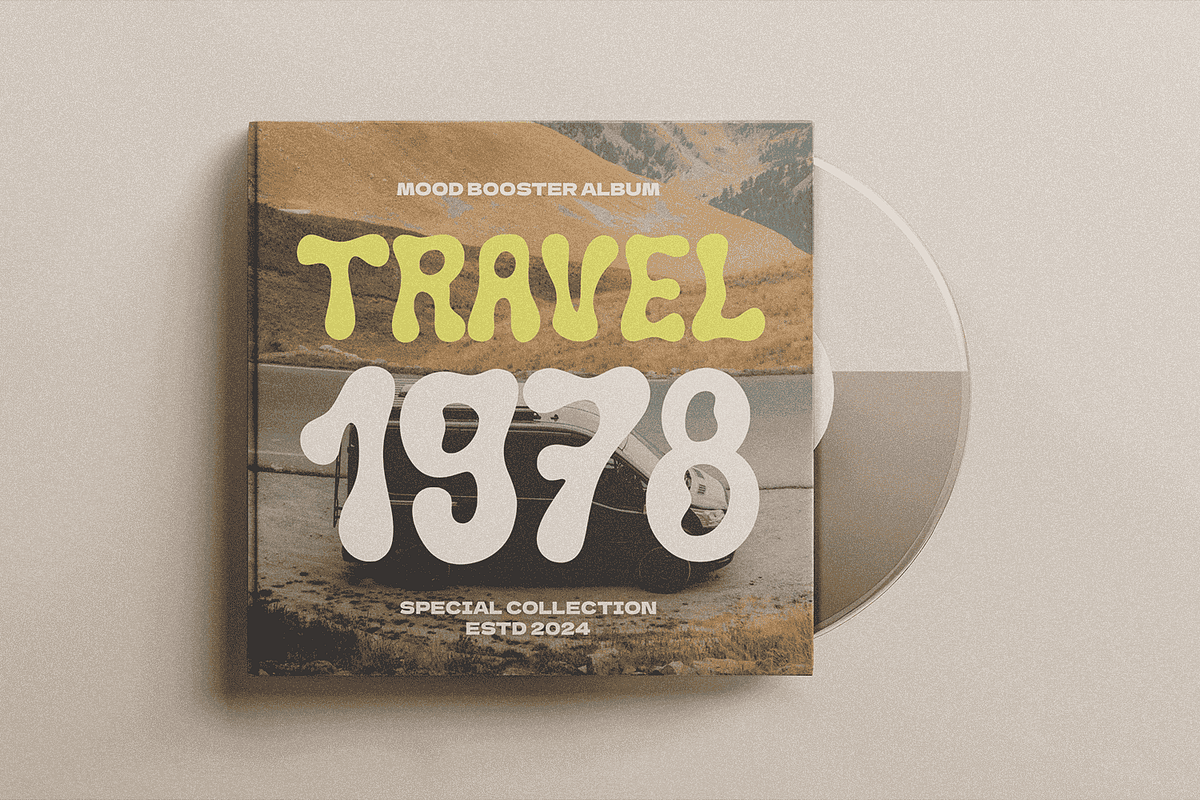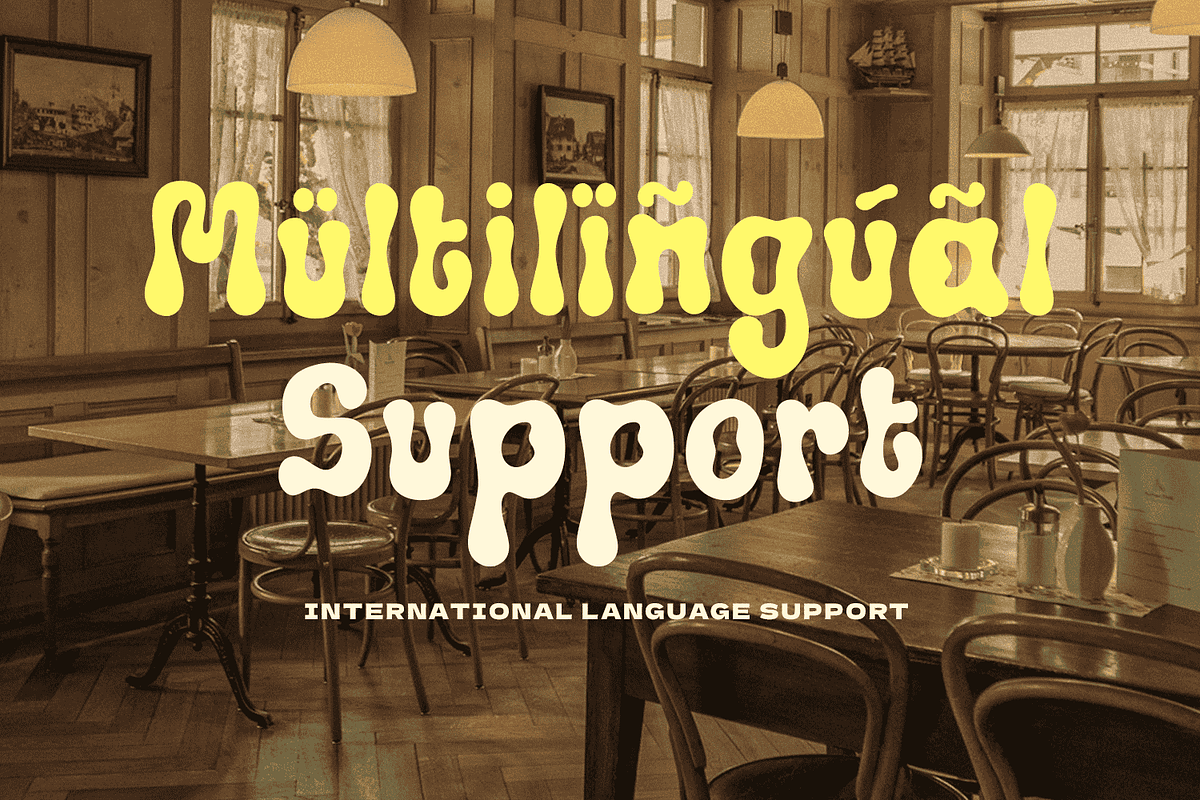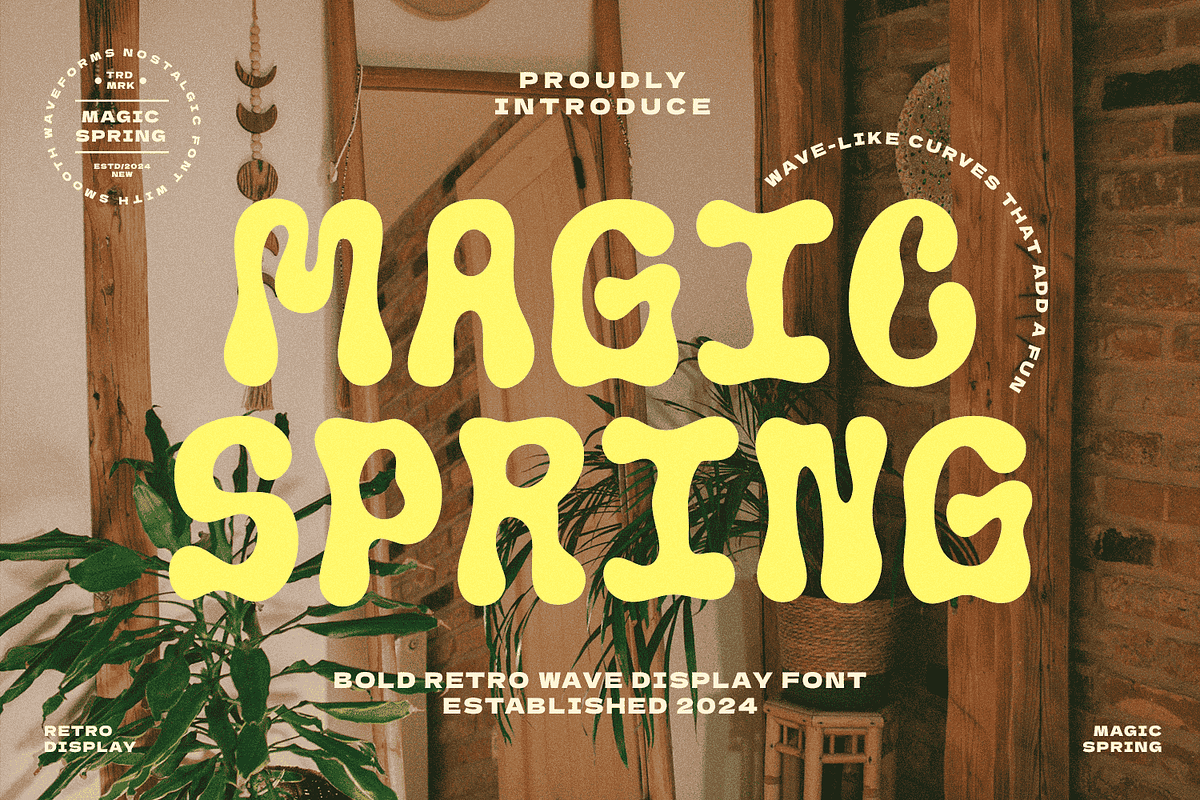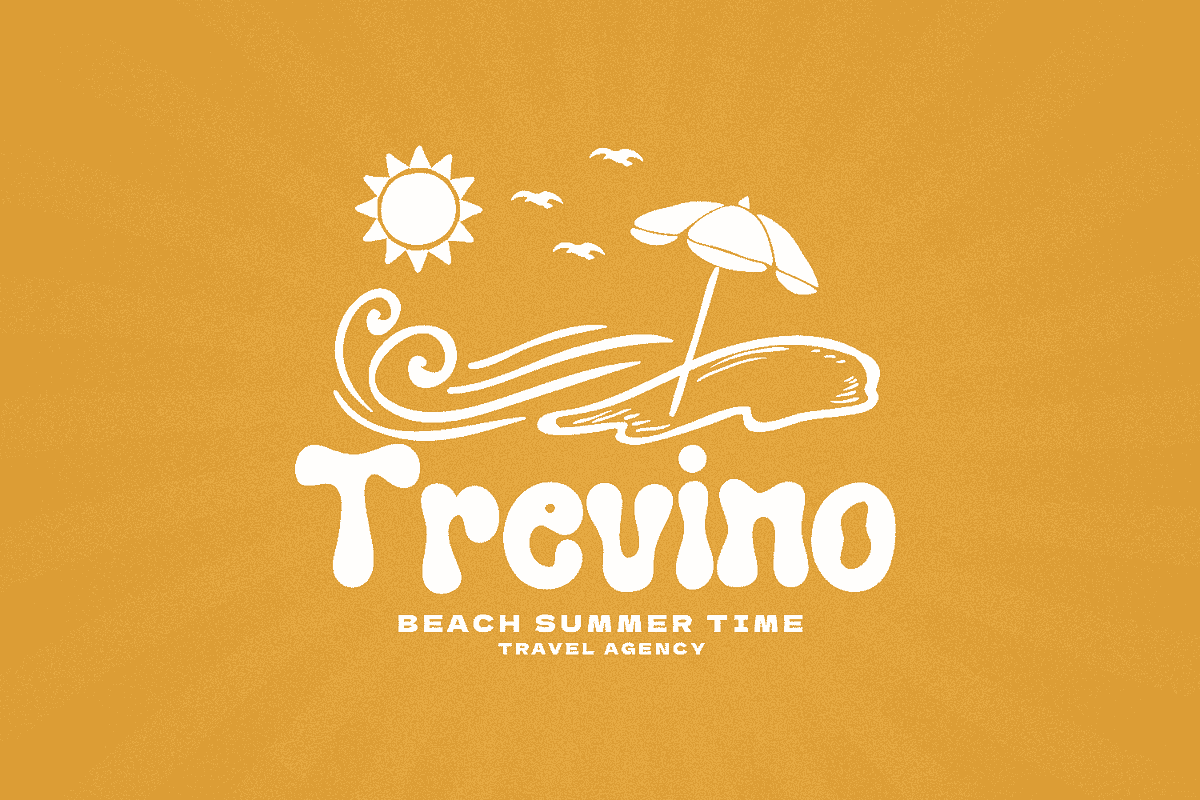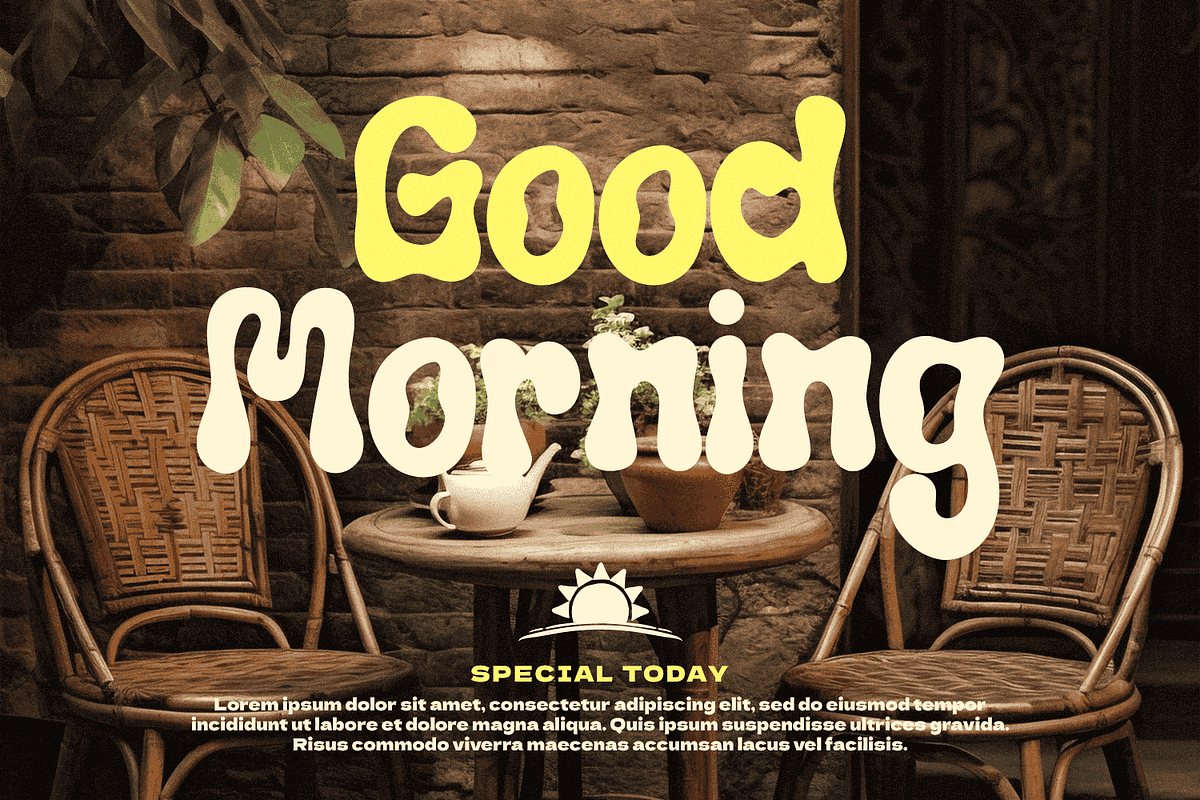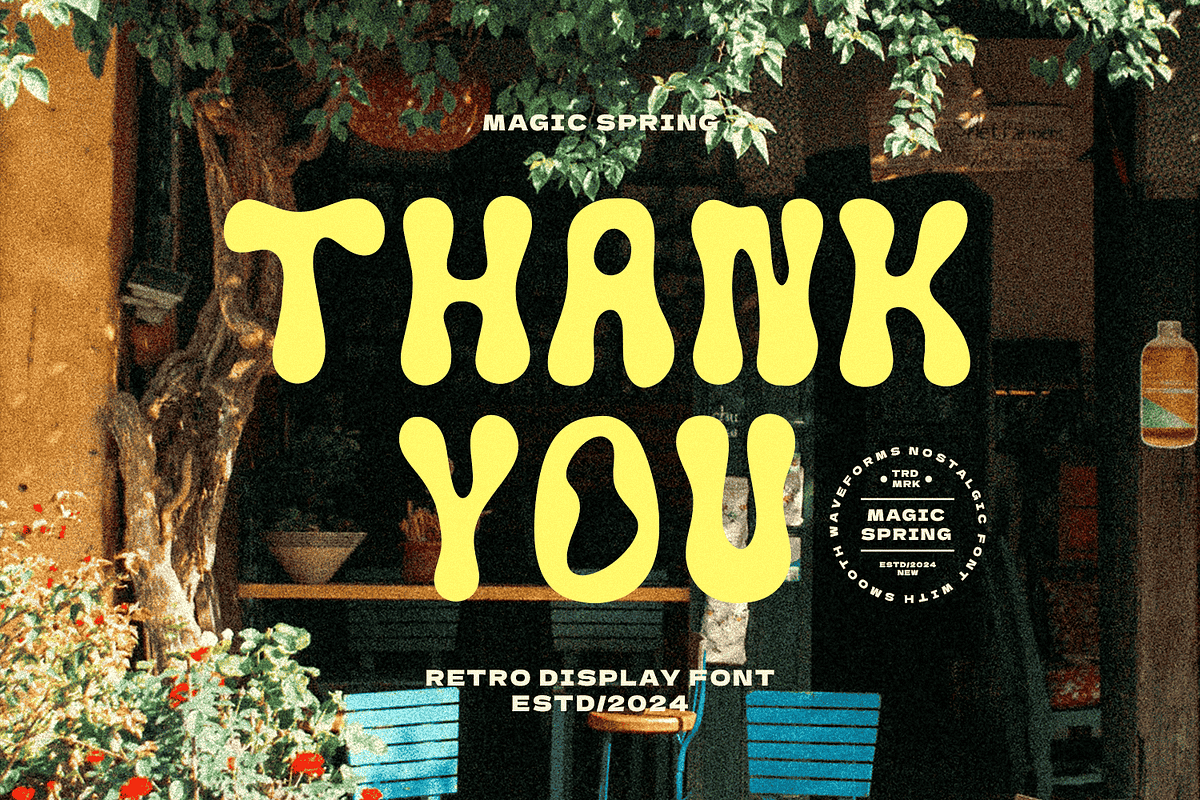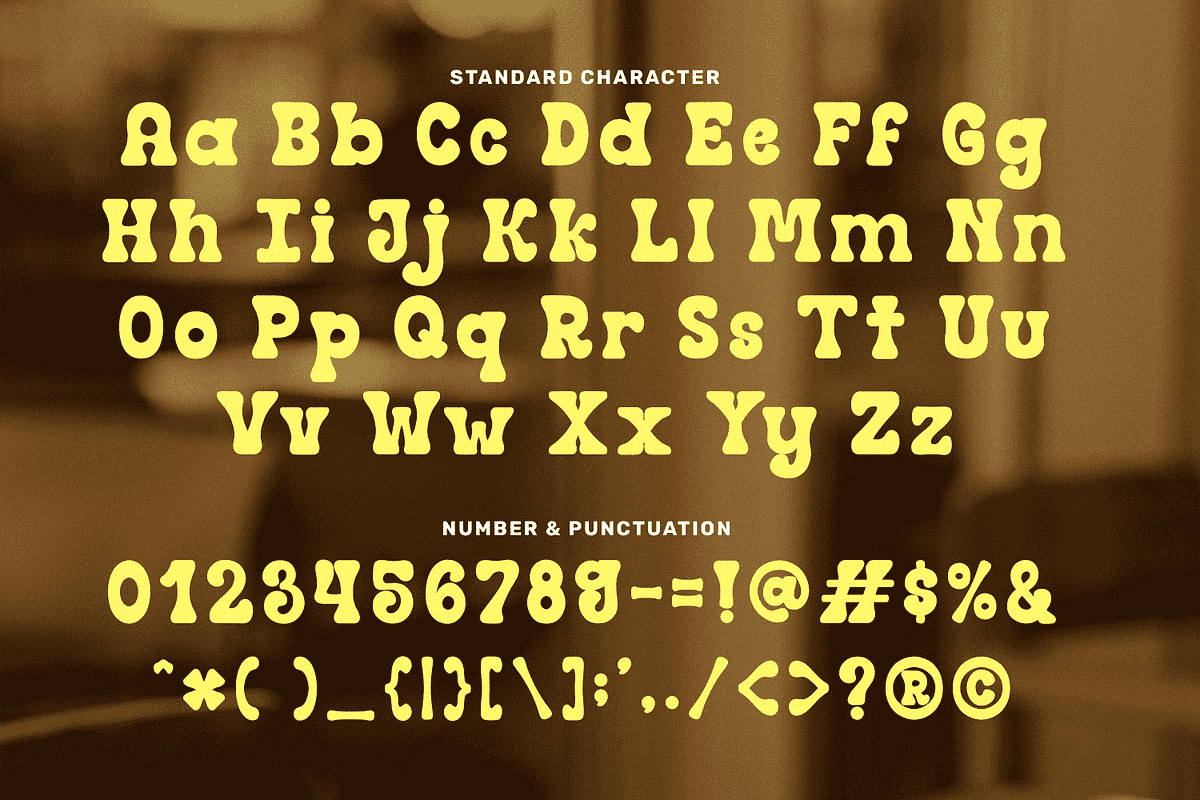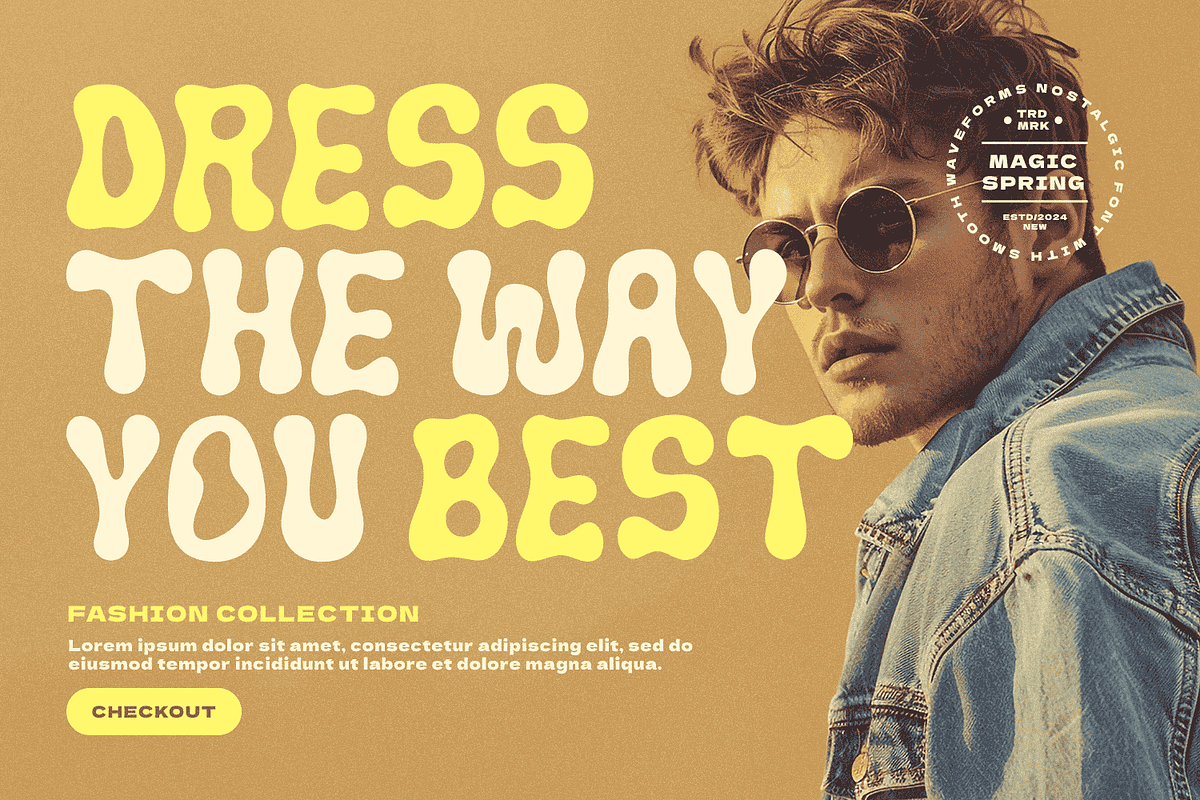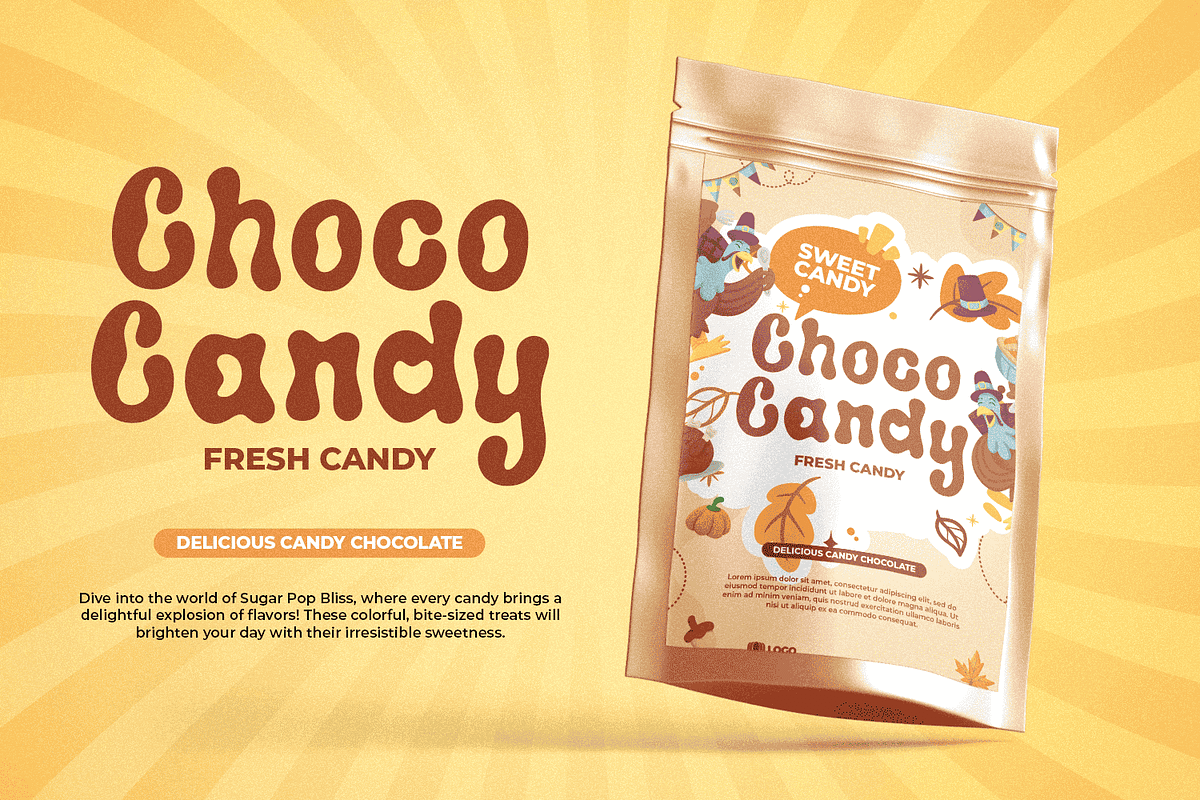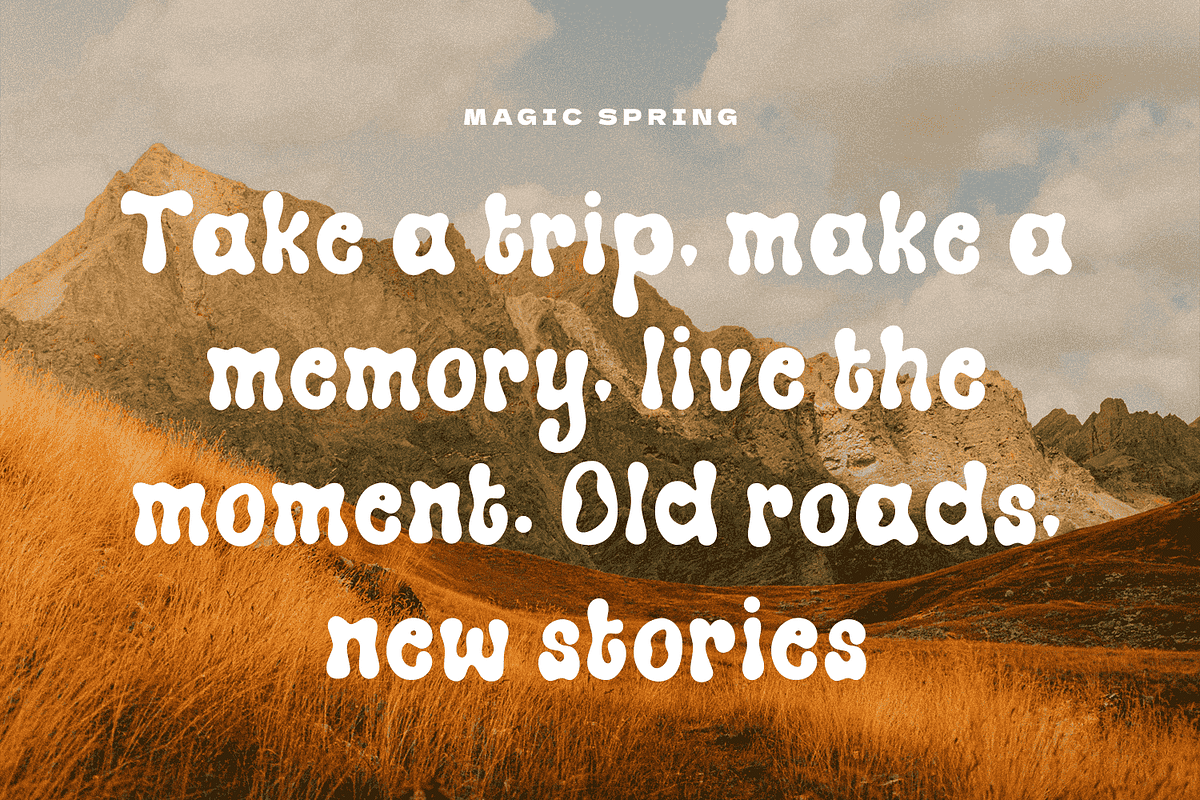
Magic Spring
Magic Spring is a vibrant and retro-inspired display font that embodies the playful spirit of spring and summer. Its bold, whimsical characters bring a sense of nostalgia and fun, making it perfect for designs that need a splash of color and personality. Whether you’re working on seasonal projects or playful themes, Magic Spring adds a fresh, lively touch that will captivate any audience.
This font is perfect for a variety of spring and summer-themed projects, from stickers and posters to social media graphics and merchandise. Its retro flair makes it ideal for designs that need a touch of the past, while still being fresh and modern. The smooth curves and eye-catching style make Magic Spring perfect for fun and energetic designs that celebrate the vibrancy of the seasons.
Whether you’re creating retro-inspired stickers, playful invitations, or seasonal banners, Magic Spring is a versatile choice that brings joy and excitement to your project. Its boldness ensures that your message will stand out, while the playful design draws viewers in, making it great for summer festivals, spring markets, or any fun-filled occasion.
Let Magic Spring elevate your designs with its retro charm and playful energy. Add a pop of fun to your next project today and watch your designs bloom!
- Standard & Multilingual glyphs.
- Fonts include multilingual support for; Afrikaans, Danish, Dutch, French, German, Indonesian, Irish, Italian, Norwegian, Portuguese, Scottish, Spanish, Swedish, Swiss, etc.